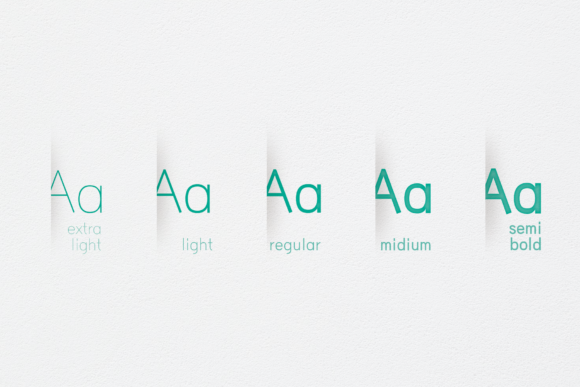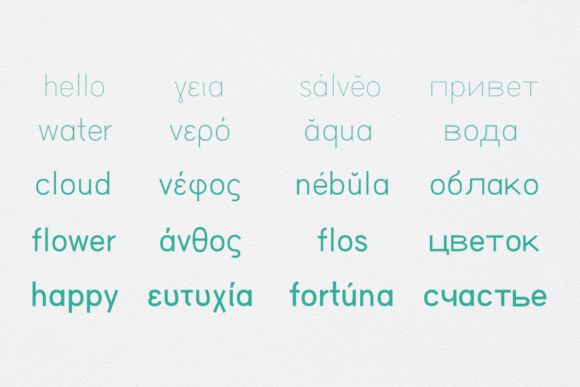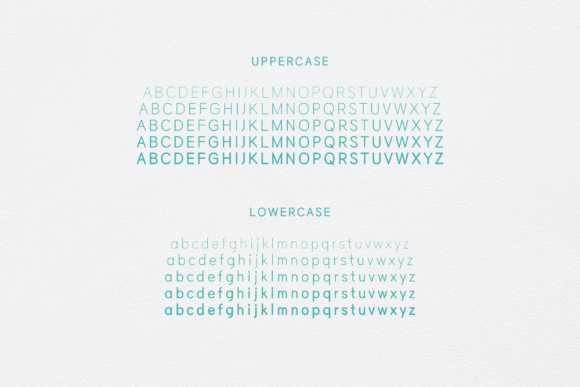
Introduction to Hu Windsans Font
HU Wind Sans is a sans serif typeface with a long body of characters and a lightweight feel appropriate for any text.
It is named β€˜Wind Sans” for the shape of some characters that remind of a blowing breeze, such as the descender of β€˜g’ and median of β€˜t ’.